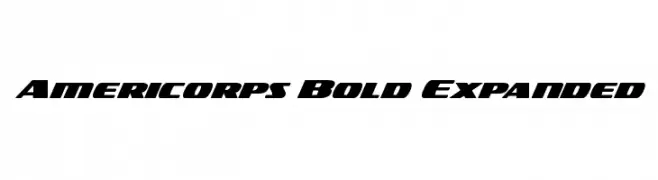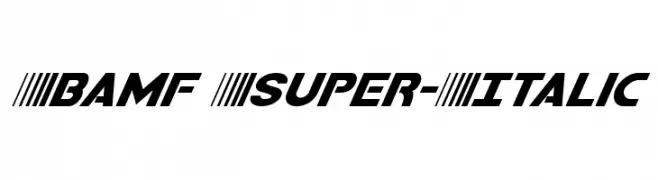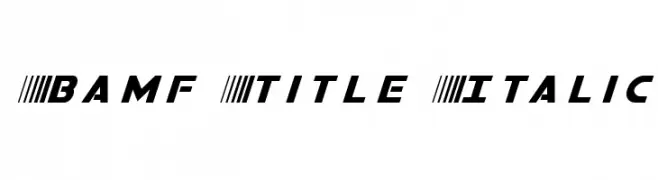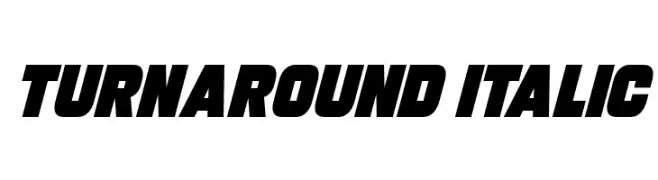
A bold, angular font with high contrast and a dynamic, jagged design.
( Darrell Flood )
A bold, italic font with a dynamic and energetic style.
( Darrell Flood )
A bold, angular italic font with a dynamic and aggressive style.
( Darrell Flood )
A bold, italic font with a dynamic and modern style.
( Fontry - M.G. Adkins - www.thefontry.com/ )
A bold, italicized font with a dynamic, heroic style.
( Fontry - M.G. Adkins - www.thefontry.com/ )
A bold, dynamic font with sharp angles and a superhero-inspired style.
A bold, slanted font with a dynamic and modern style.
A bold, expanded, and italicized font with a modern, dynamic style.
A bold, italic font with a dynamic and modern style.
A bold, italic font with dynamic strokes and a modern, energetic style.